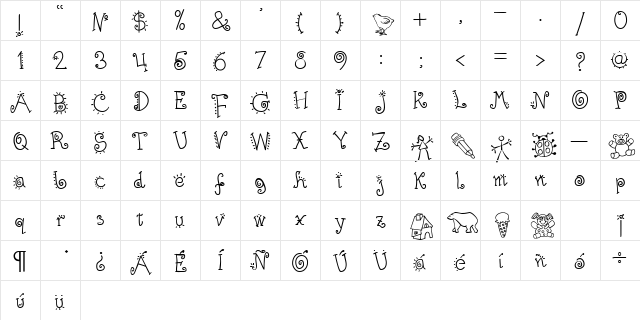
AbcAlegria Regular
Design Context for AbcAlegria Typeface
AbcAlegria is a composed and adaptable typeface that performs quietly and consistently across a wide range of design contexts.